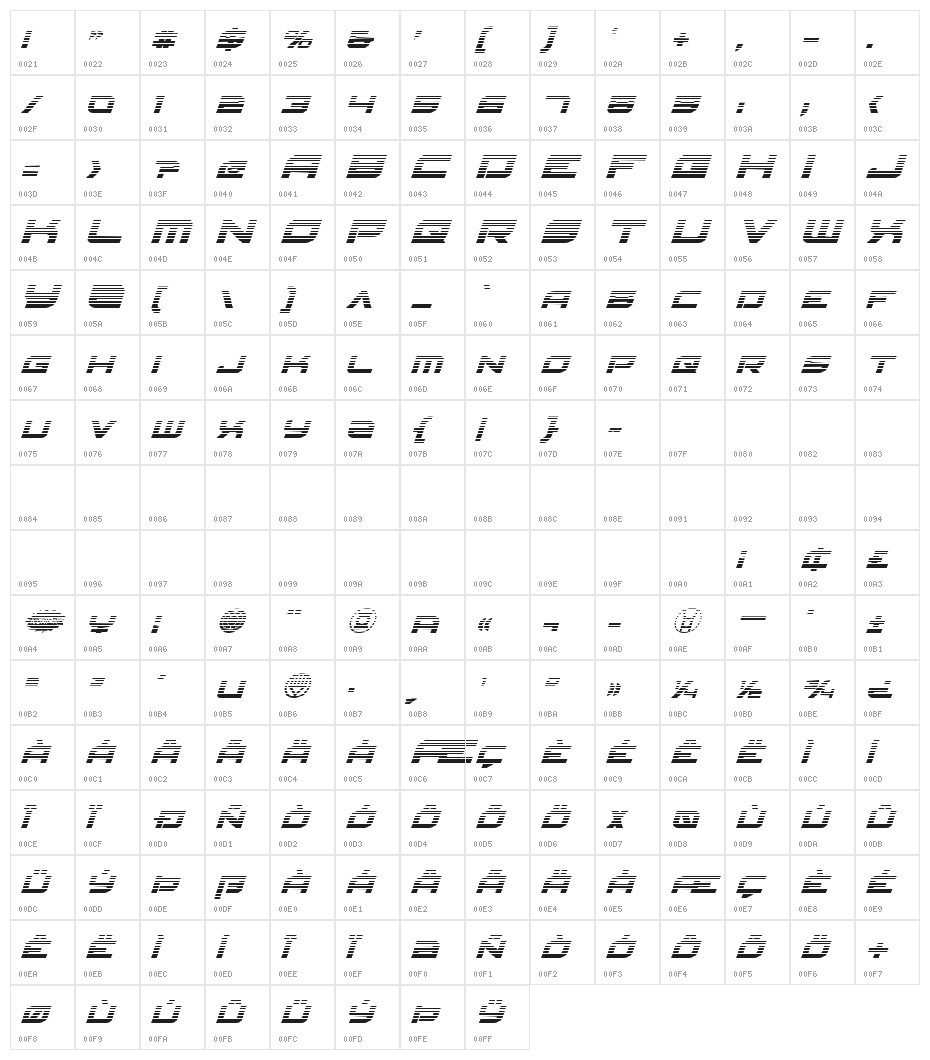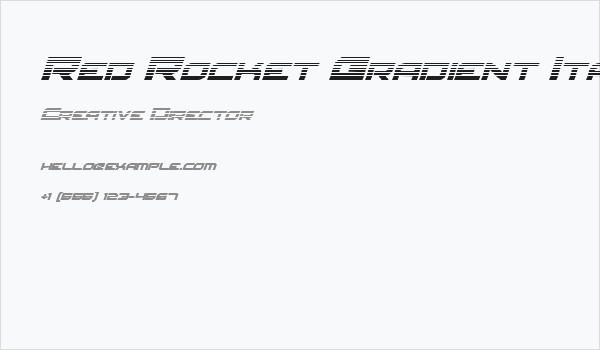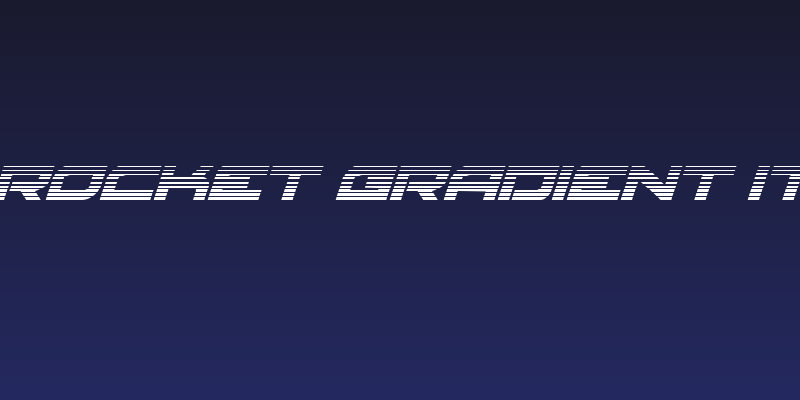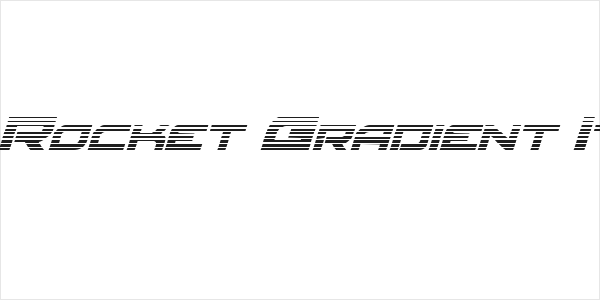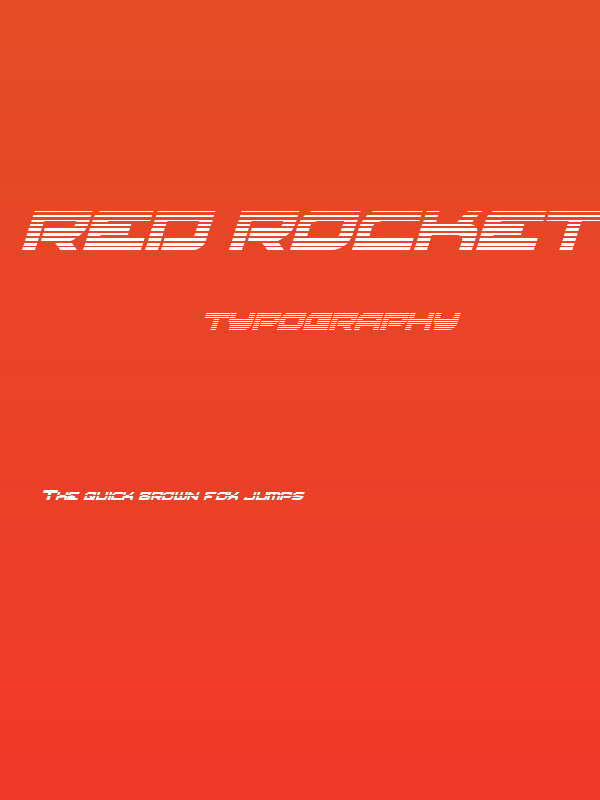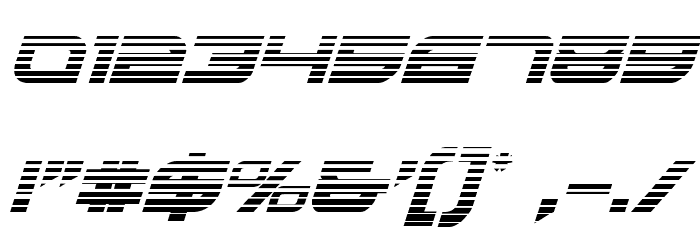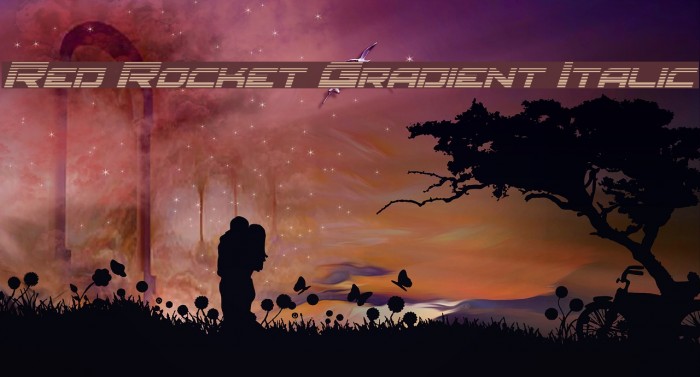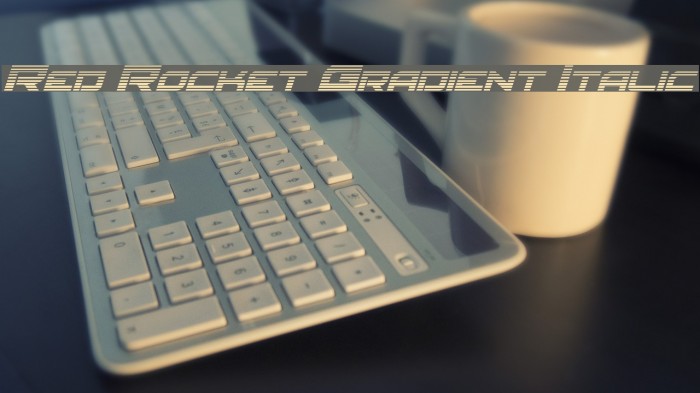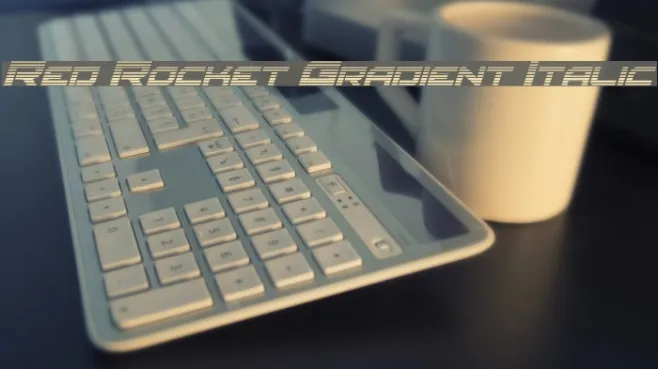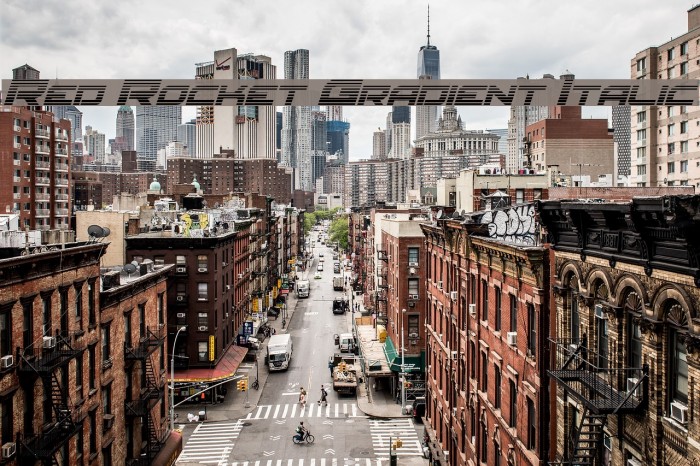
Red Rocket Gradient Italic Font
Red Rocket Gradient Italic Description
This font features a futuristic and dynamic design, characterized by its italicized and gradient-like appearance. The letters are composed of horizontal lines that create a sense of movement and speed, making it ideal for projects that require a modern and energetic feel. The uppercase and lowercase letters, as well as numbers and special characters, maintain a consistent style, ensuring uniformity across different text elements. The font's unique structure and slanted orientation give it a distinctive and eye-catching look, suitable for creative and innovative designs.
| Proposed Projects | Ideal for tech-related branding, futuristic posters, video game titles, and dynamic advertisements. |